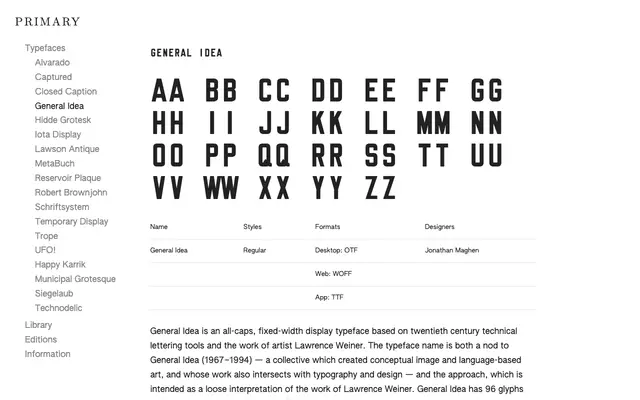
General Idea
An all-caps, fixed-width display face by Jonathan Maghen drawn from twentieth century technical lettering and the text-based art of Lawrence Weiner.
Rooted in the visual language of Lawrence Weiner and named partly in tribute to the Canadian conceptual art collective General Idea (1967–1994), the typeface carries a spare, institutional character suited to cultural and editorial contexts. The glyph set is limited to 96 characters covering basic Latin, lining figures, punctuation and symbols. The Desktop OTF is available free for self-initiated, non-profit and cultural projects, with paid licences for commercial use.
An all-caps, fixed-width display face derived from twentieth century technical lettering tools and the visual language of Lawrence Weiner's text-based art, placing it firmly in the display category with a monospaced, stencil-adjacent character.